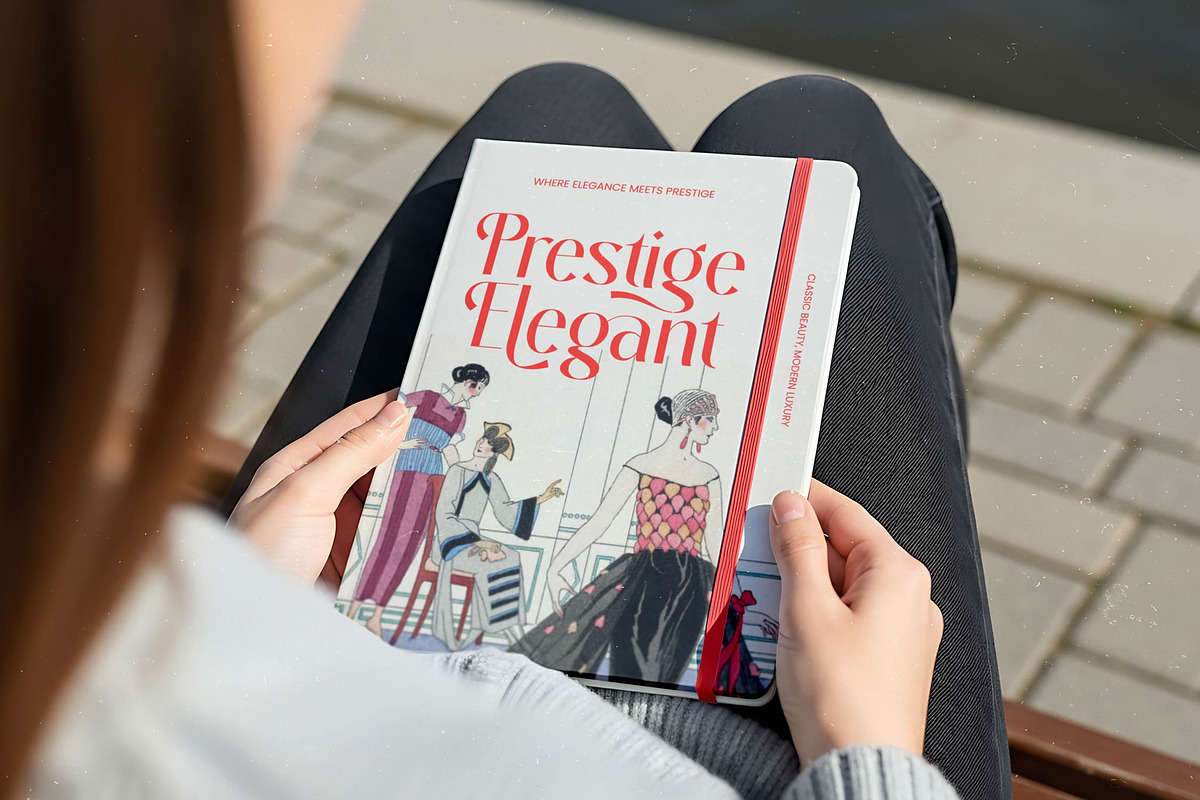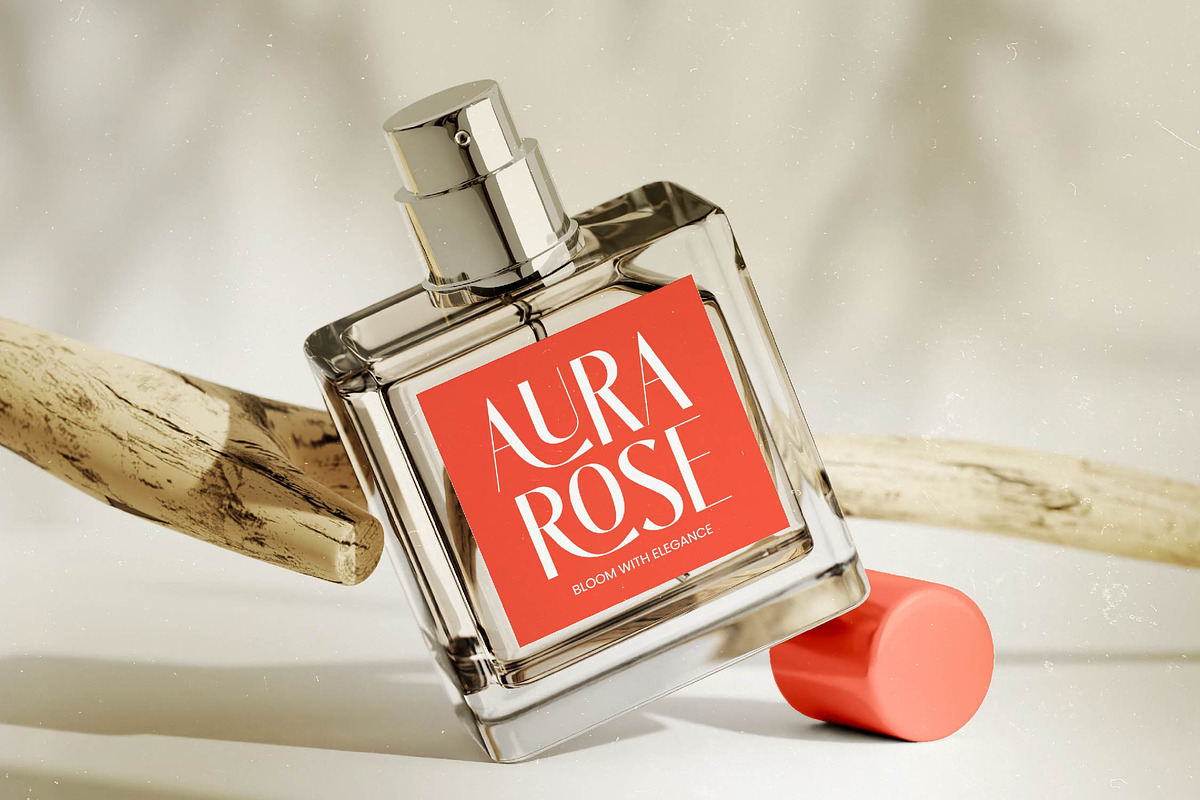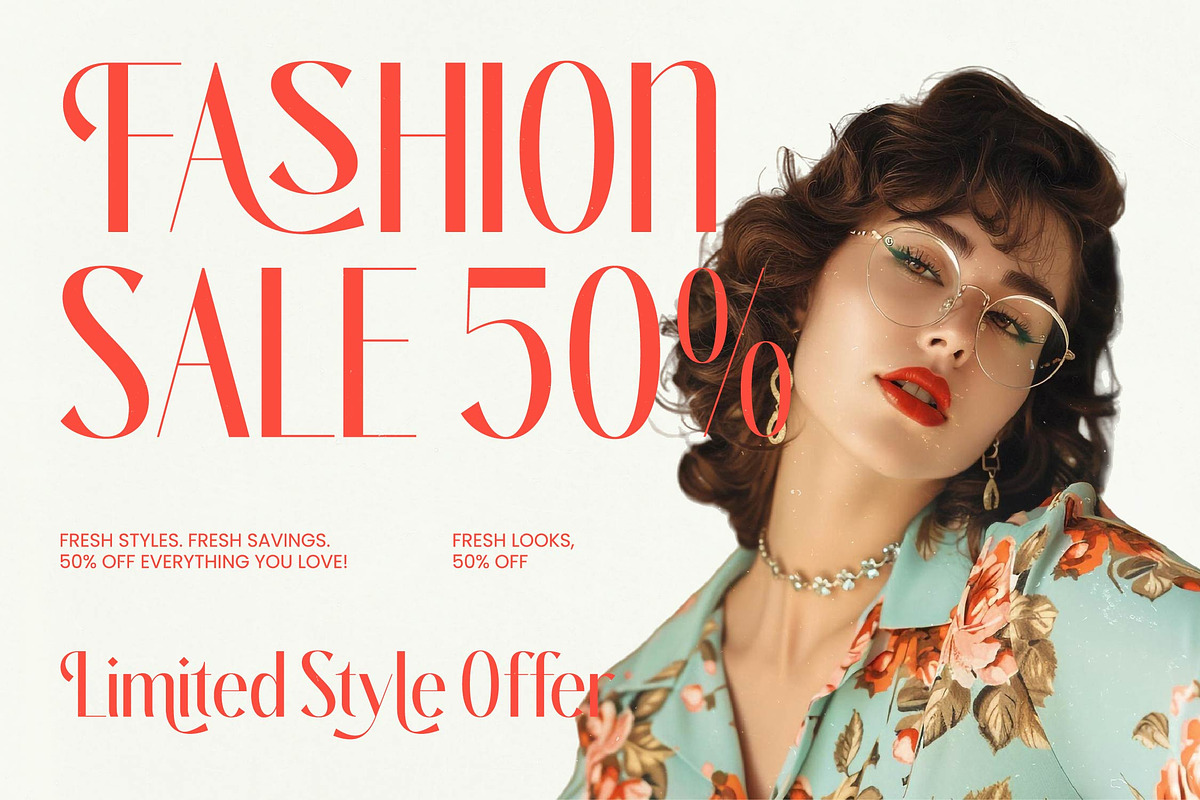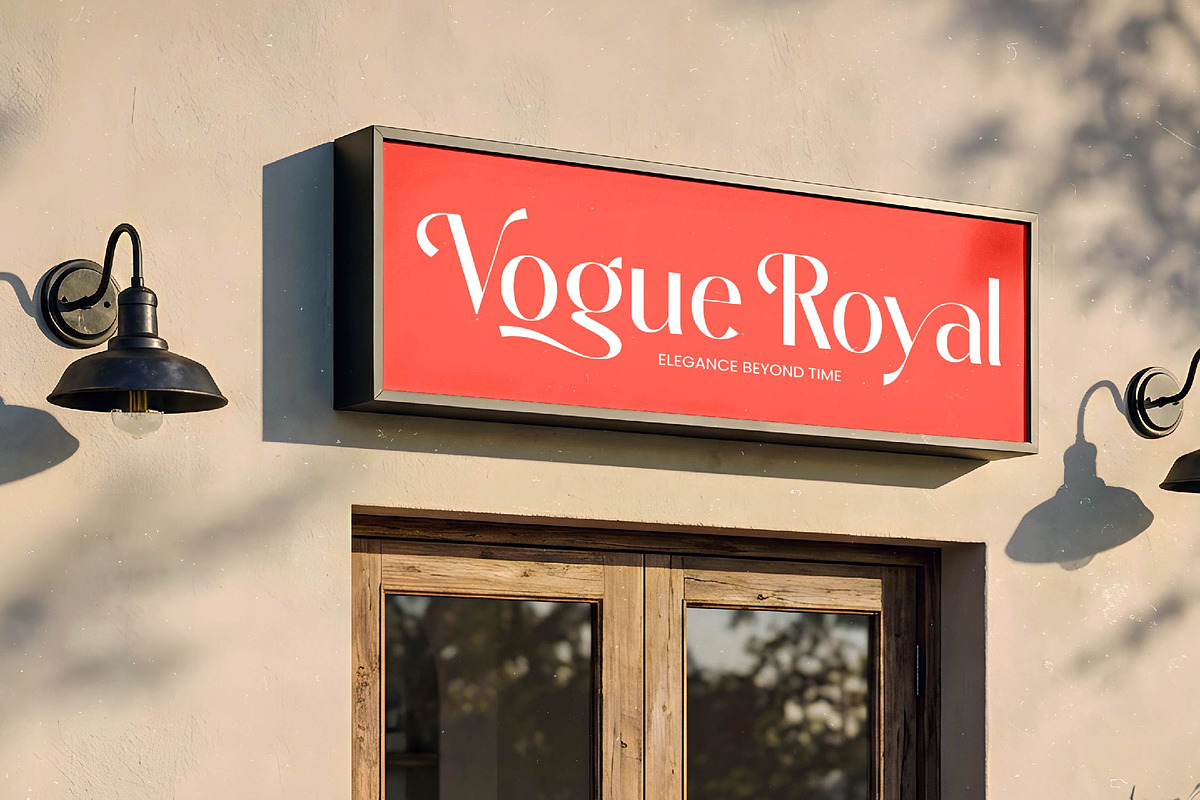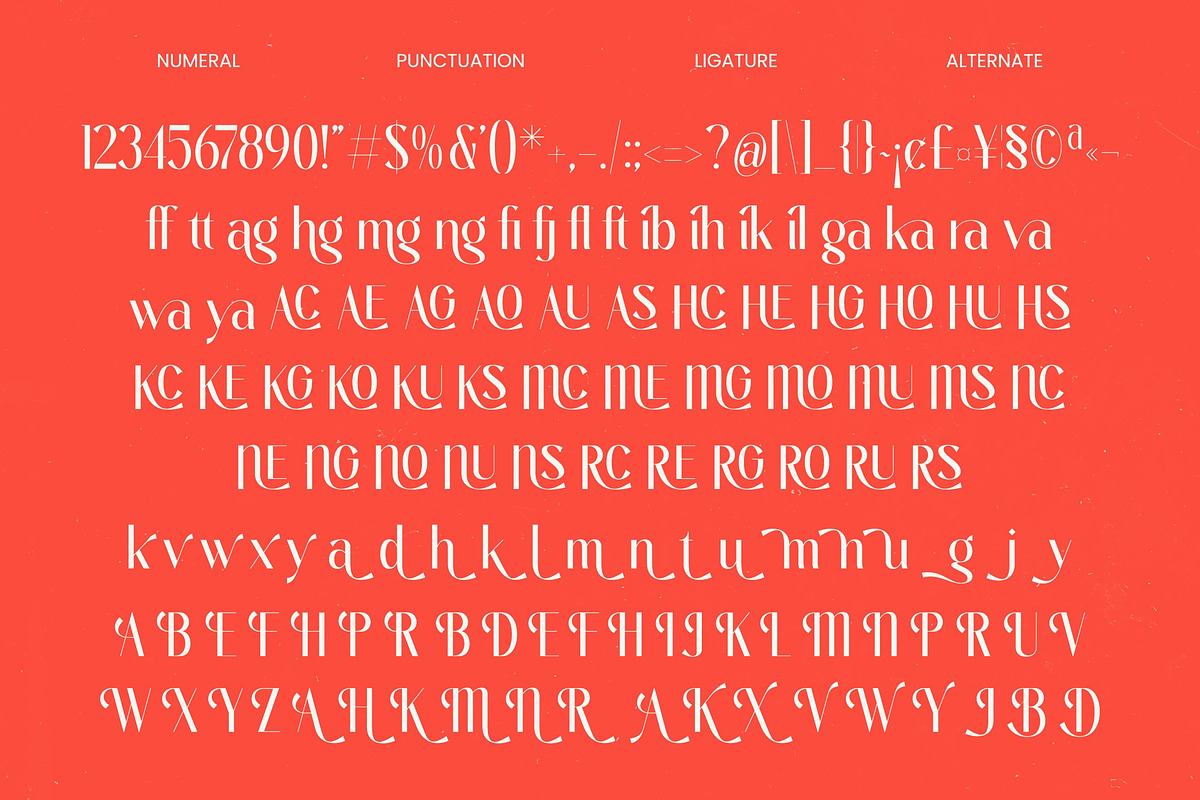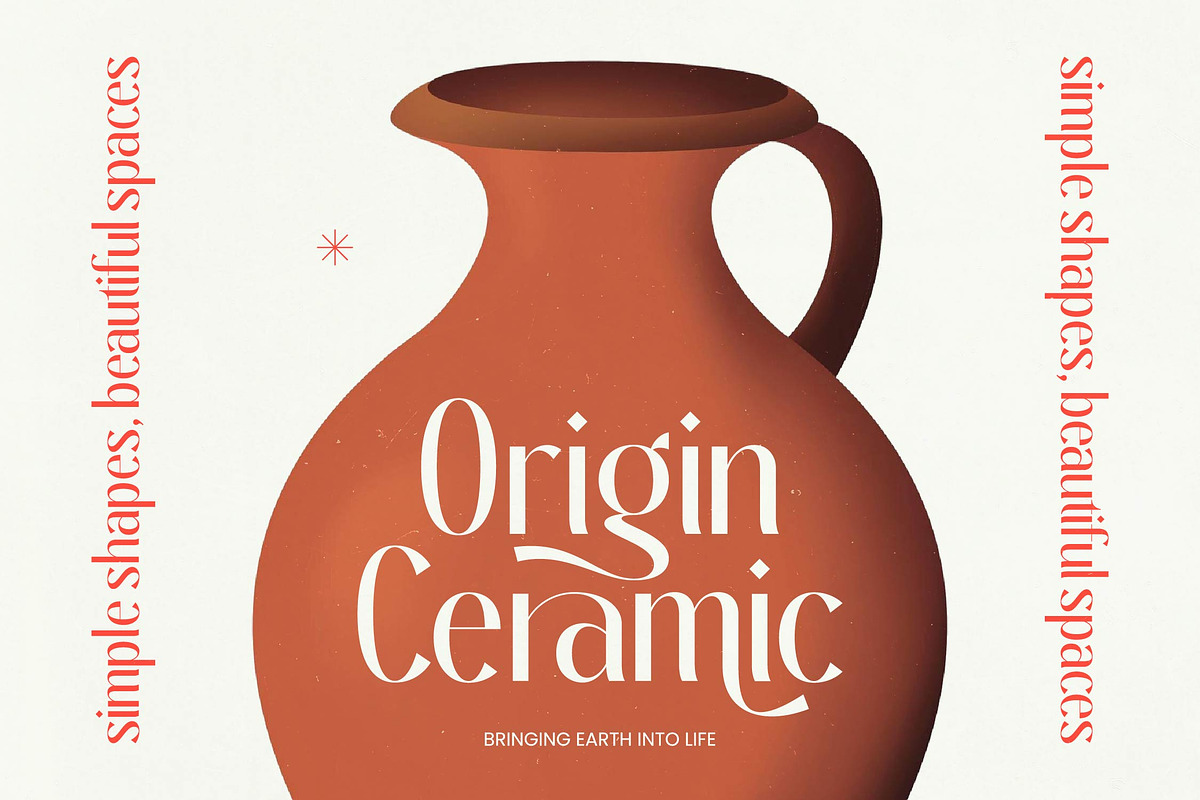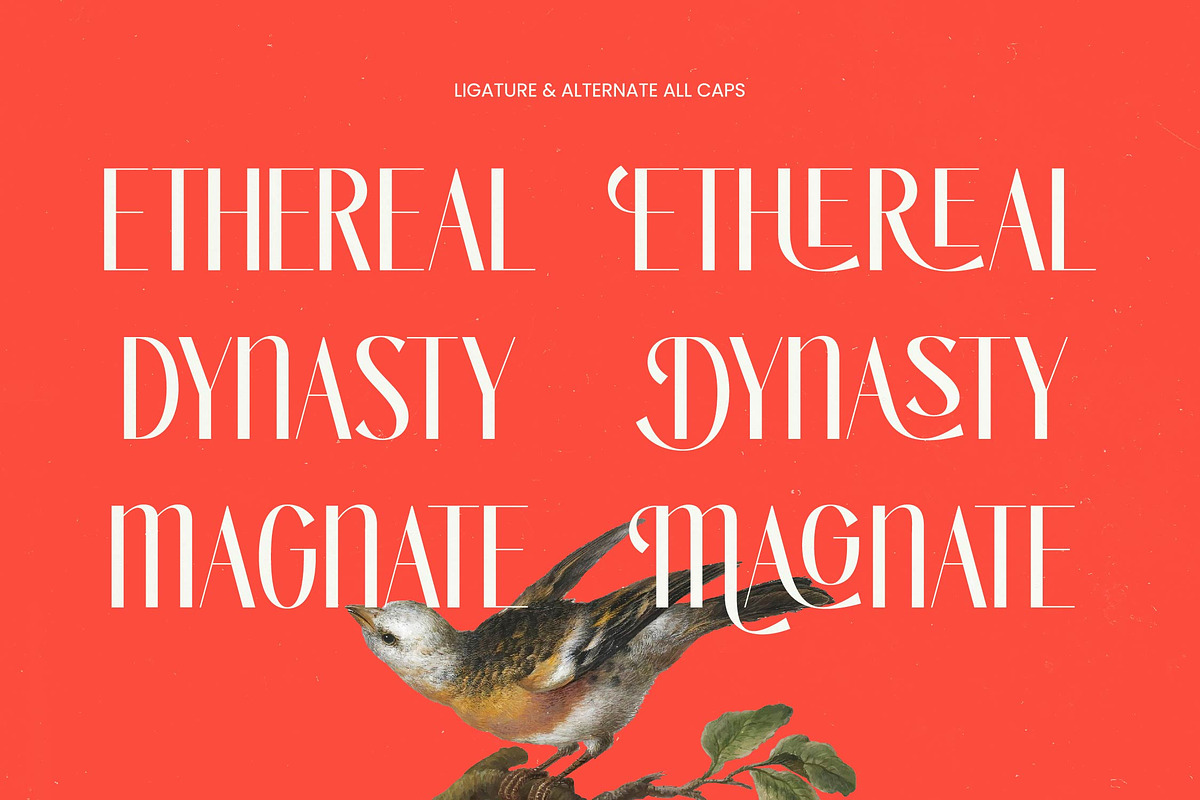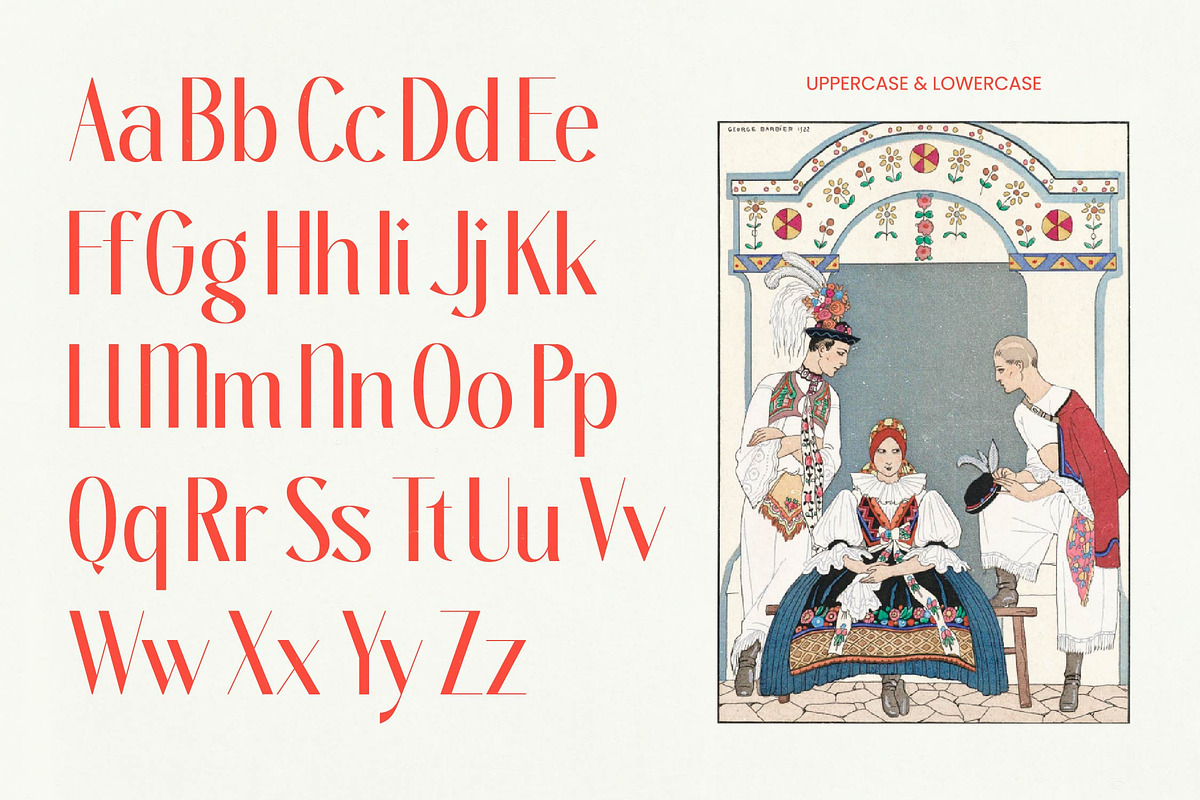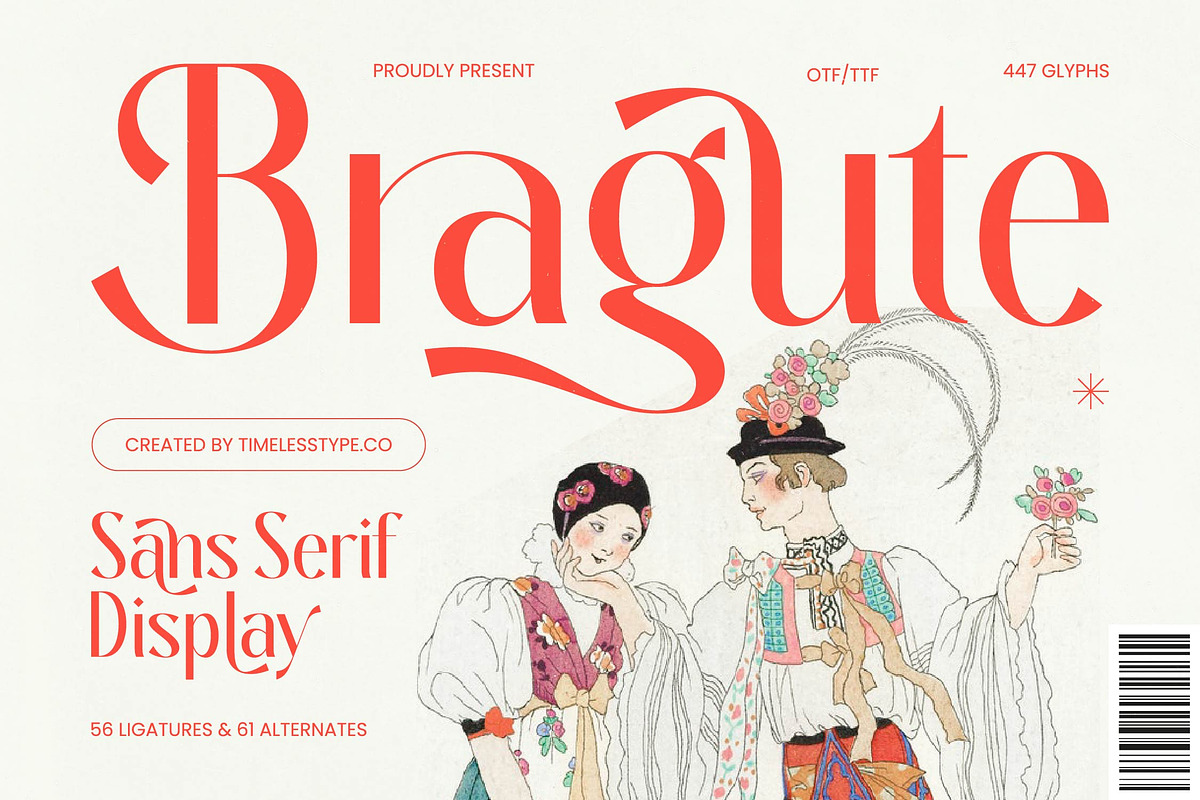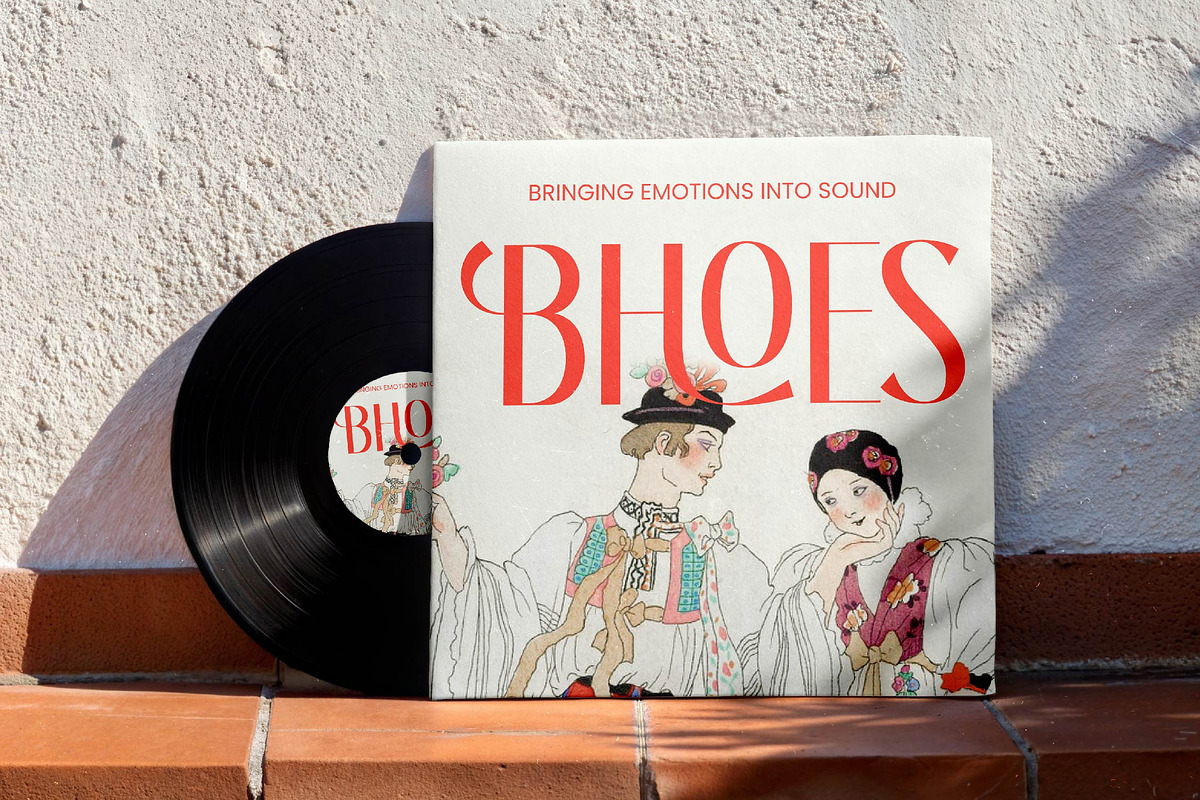
Bragute Sans Serif Display
Bragute - Sans Serif Display , Step into a world of refined beauty with Bragute, a typeface crafted for those who seek to balance classic grace with a sharp, contemporary edge. This font is a love letter to high-end aesthetics, ensuring every headline you set becomes an instant piece of art.
Drawing inspiration from the golden age of fashion illustration and vintage editorial layouts, its silhouettes evoke a sense of heritage and artisanal precision. It creates an atmosphere where tradition meets the avant-garde, making it ideal for projects that require a soul and a story.
Experience the ultimate modern serif display that commands attention through its luxury typography and breathtaking high-contrast serif strokes. It is the perfect editorial font for creators seeking a profound branding impact that resonates with premium and discerning audiences.
Aligning perfectly with the current modern serif trend, this typeface stands at the forefront of editorial display fonts. It embraces character-driven typography to offer a unique visual rhythm that feels both remarkably fresh and deeply heritage-inspired for the modern age.
Versatile enough for high-end logo design and comprehensive branding projects, it shines in the worlds of editorial layouts and luxury packaging. From dream-like wedding invitations to the bold demands of fashion magazines, its application is truly limitless.
This professional package comes loaded with a rich set of ligatures and unique alternates to expand your creative range significantly. With beautiful swashes, full multilingual support, and a vast collection of international characters, it is ready for global design excellence.